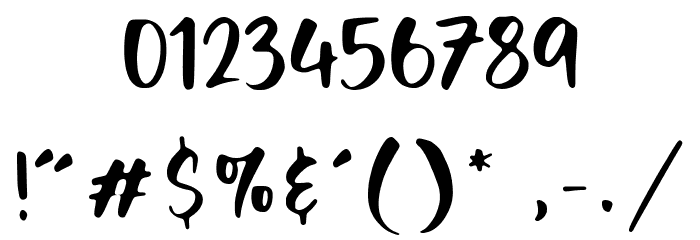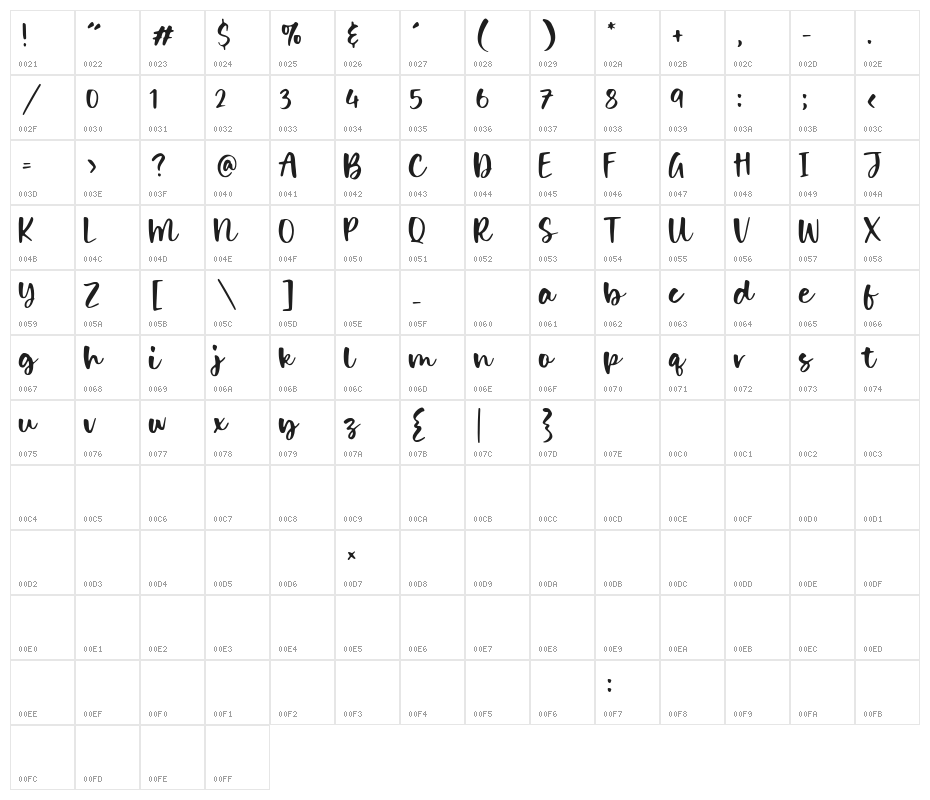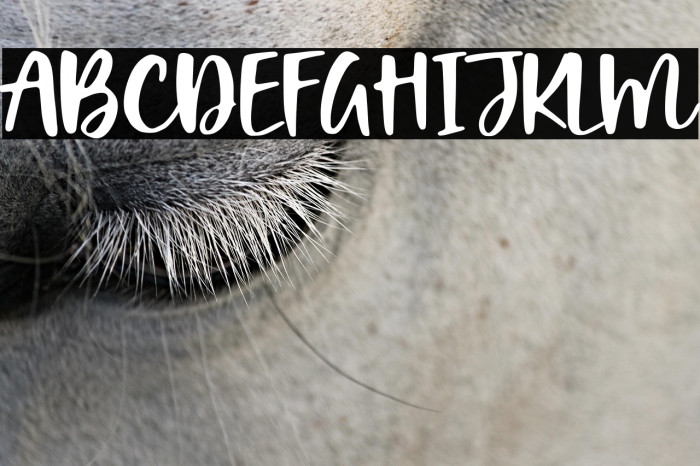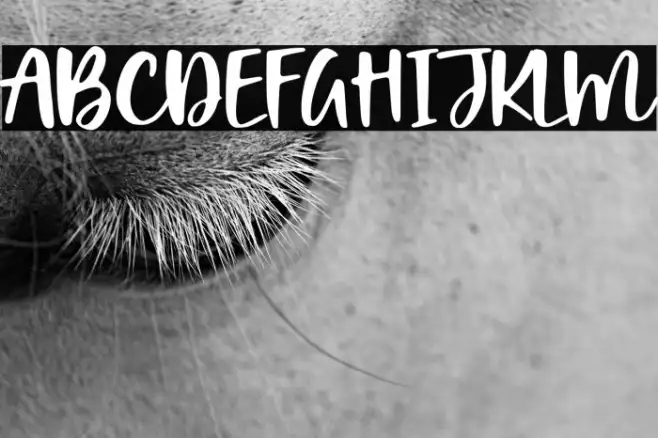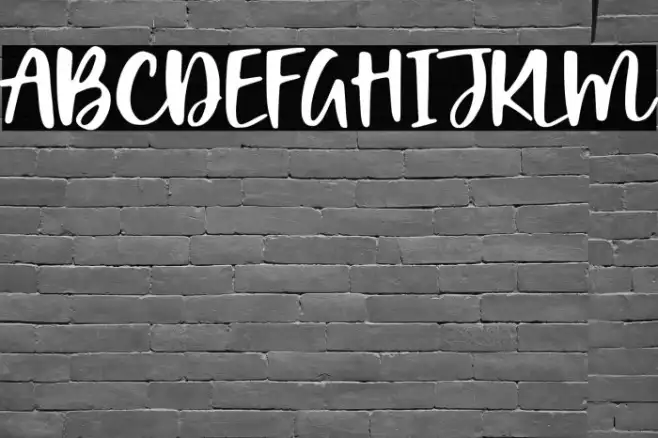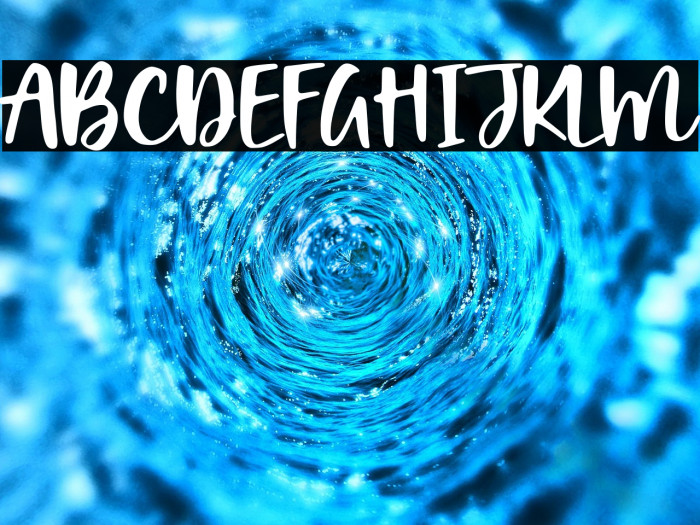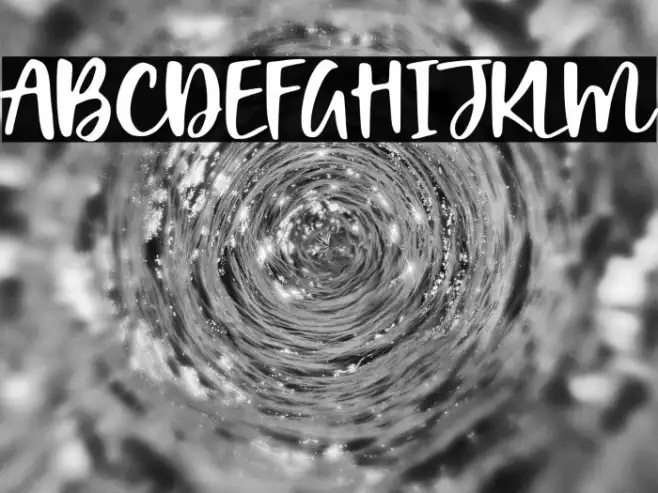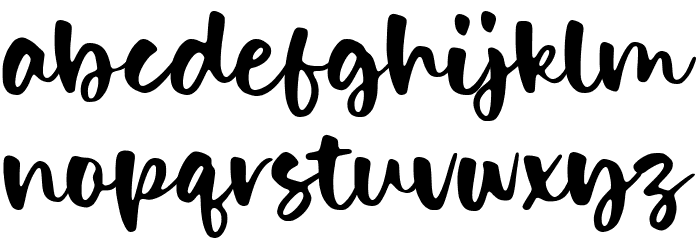
Dolphin Dolls Font
This font features a playful and energetic script style, characterized by its bold and flowing strokes. The uppercase letters are dynamic and slightly irregular, giving a sense of movement and spontaneity. The lowercase letters maintain a cohesive flow, with rounded forms and a casual, handwritten appearance. Numbers and special characters are consistent with the overall style, adding to its charm and versatility. The font's lively nature makes it suitable for projects that require a personal and informal touch.
Use CaseLogos, Headlines, Invitations
Proposed ProjectsIdeal for greeting cards, invitations, logos, and social media graphics.